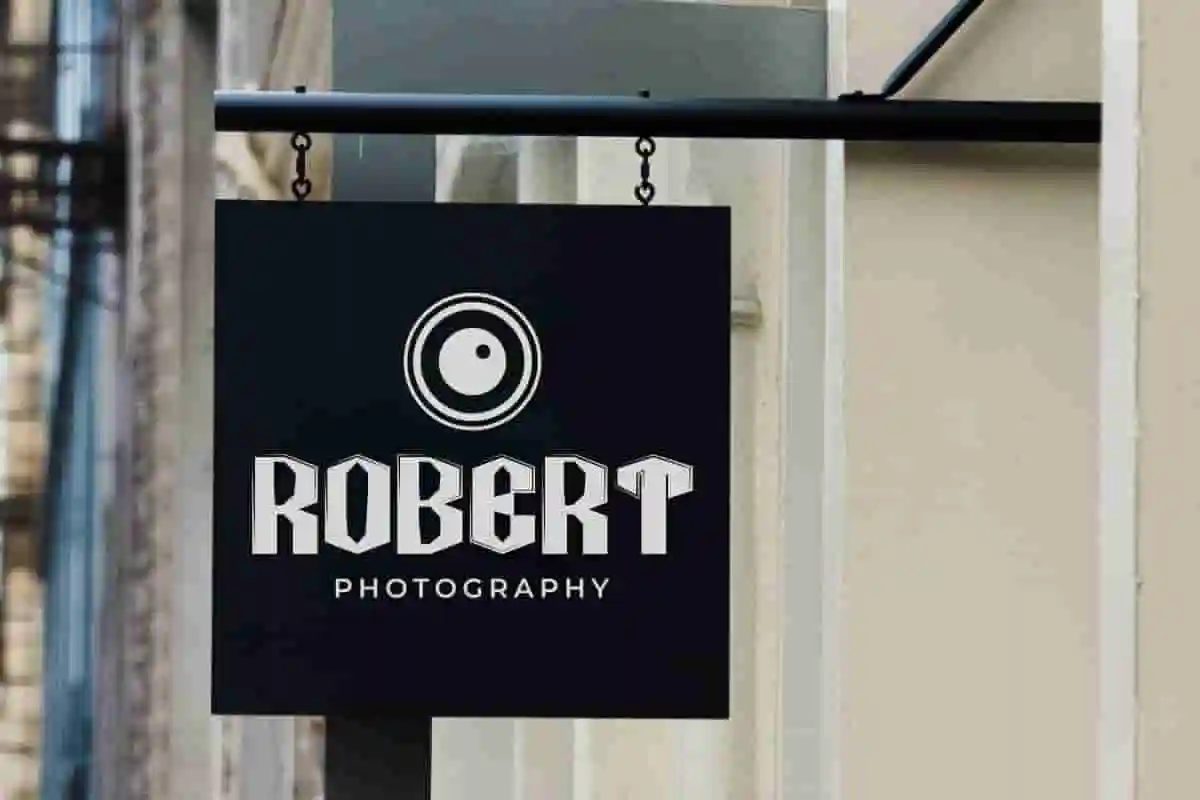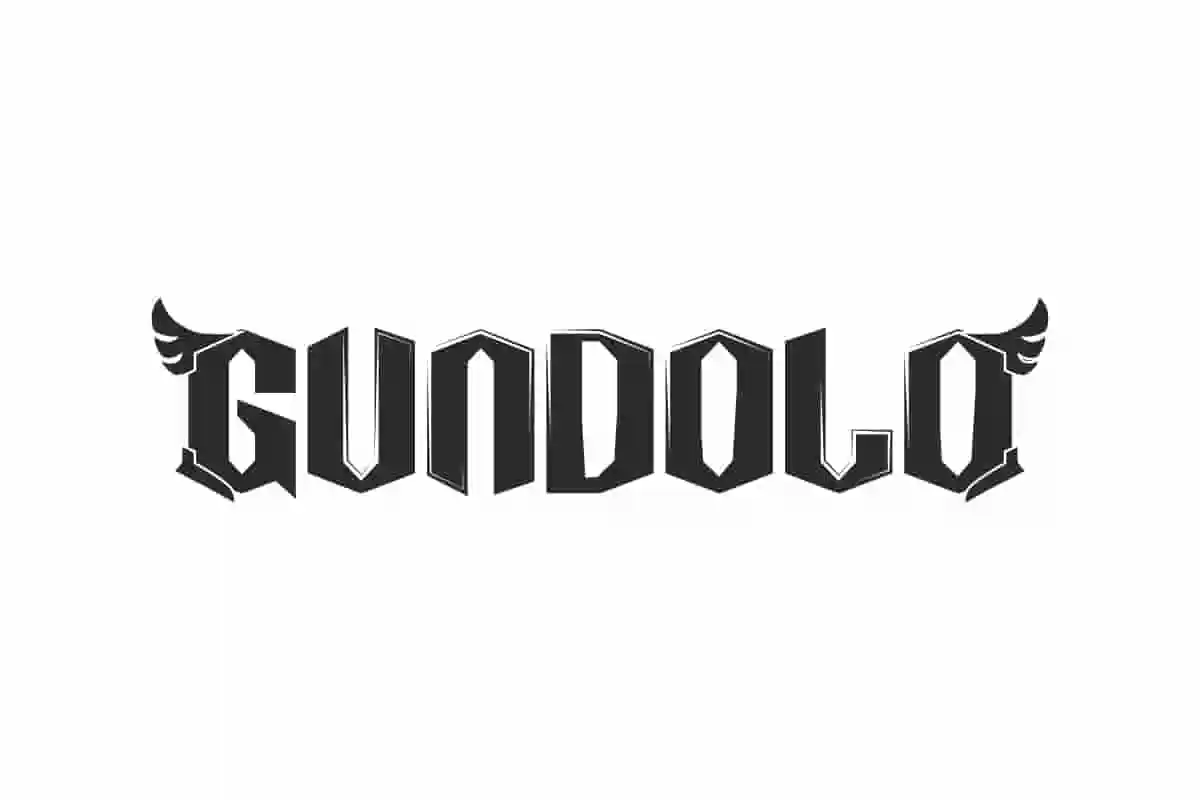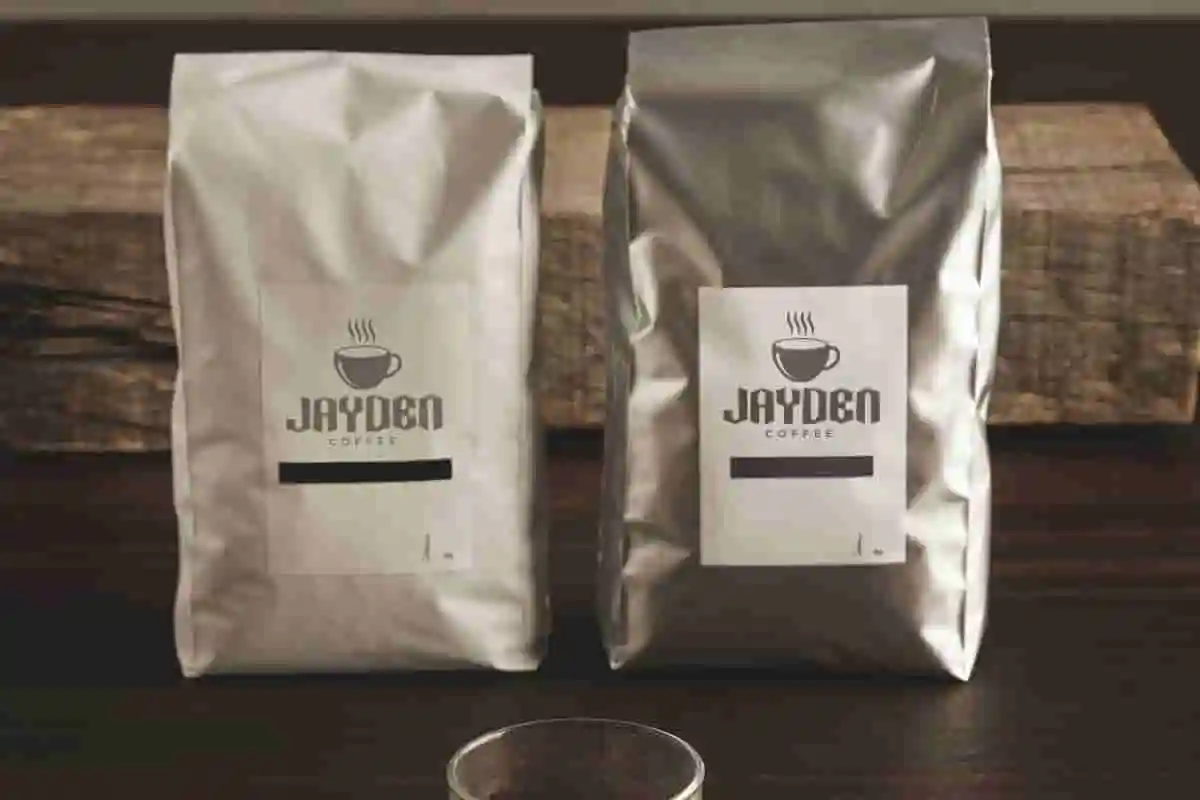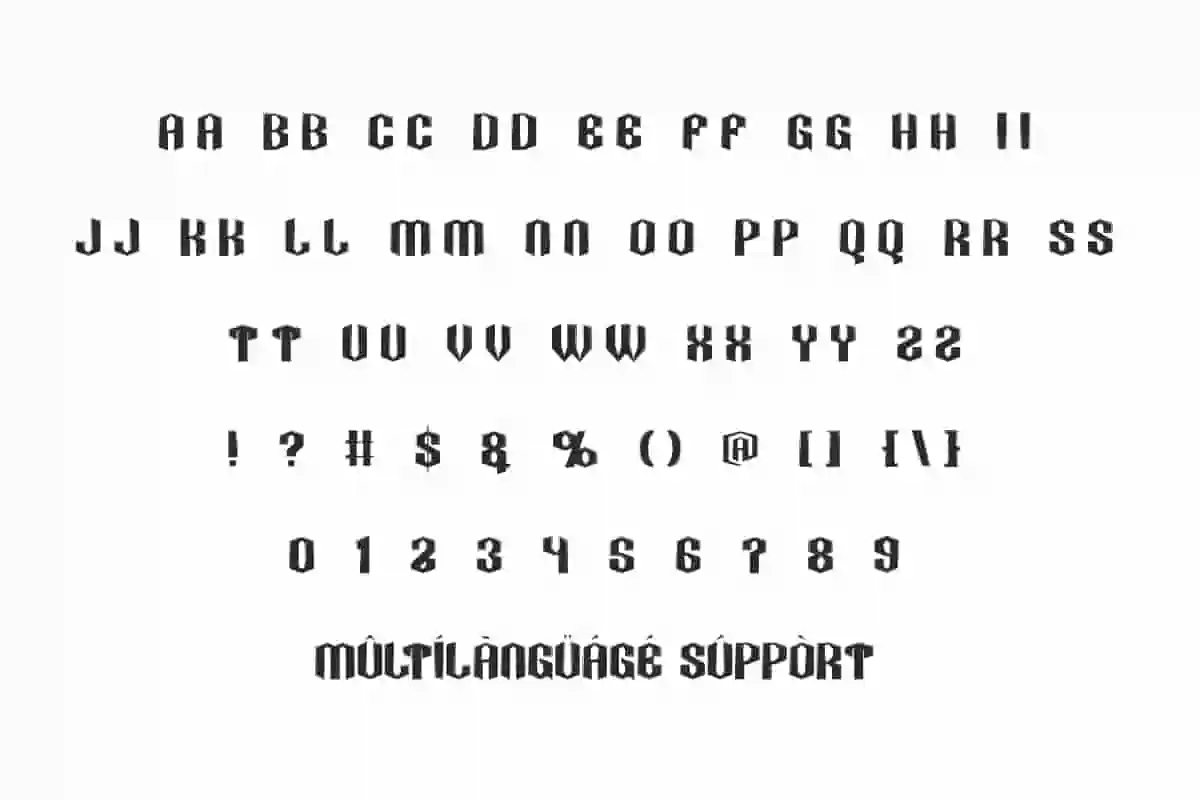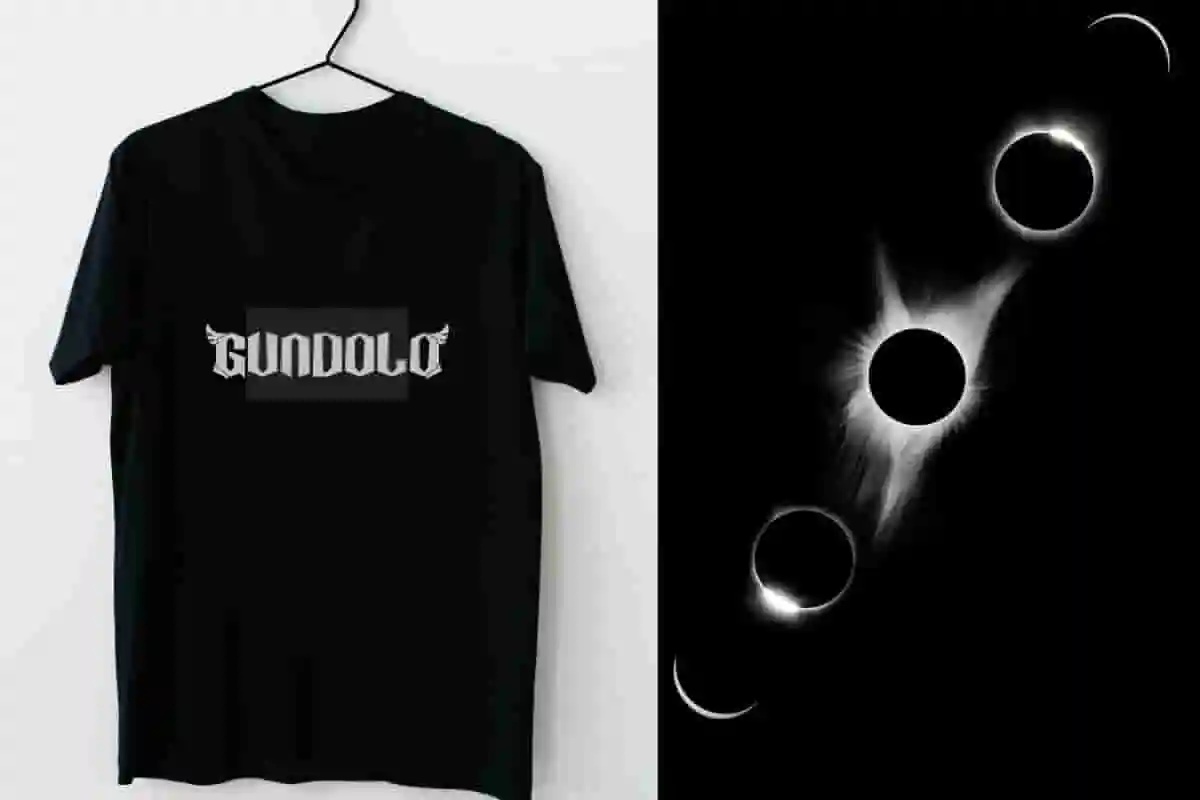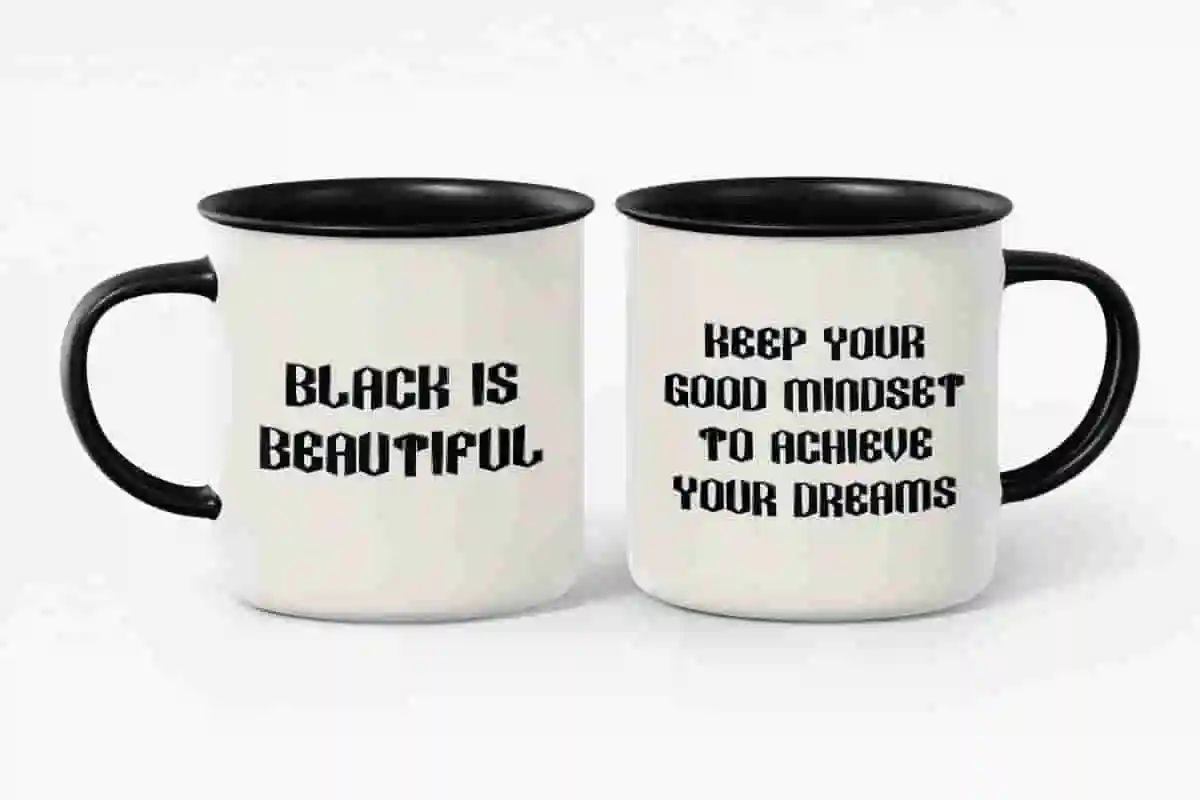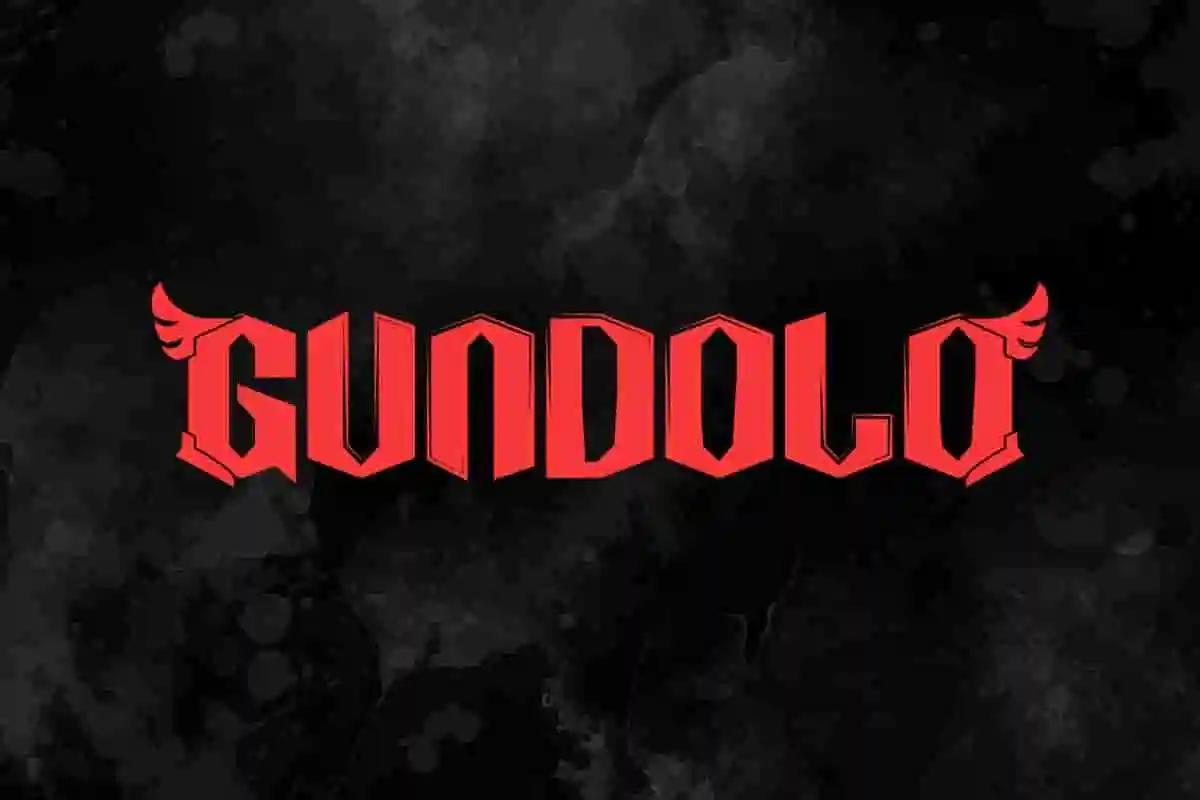
Gundolo Font is a stunning modern display font with bold shapes and boldness. This font perfect for advertising, logo, menswear, poster, and more!
Gundolo Font is a cool display font with a basic letter style of modern blackletter decorated with complete wing elements to add an interesting impression to the font. It will be perfect as part of your design and branding projects that demand a strong and unique typographic look, such as blogs, cards design, cover, custom mug, headers, headline, packaging, poster, signage, t-shirt screen printing, title, website, etc.
Gundolo Font includes full set of ALL CAPS for Uppercase and Lowercase Basic Characters, Numbers, Punctuation, Symbols and Alternate. This font is versatile for use in anything for both personal and professional use. Its slightly different shape with carvings on each letter and thick weight can provide a stunning visual. Ideal for advertising, fashion, graphic design, music, photography, printing, etc.